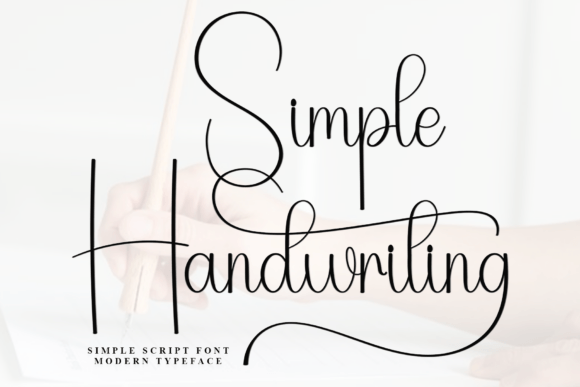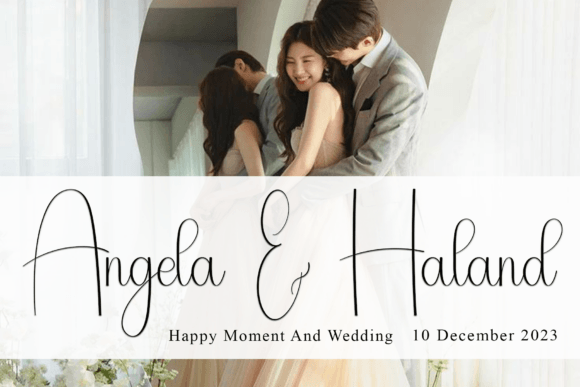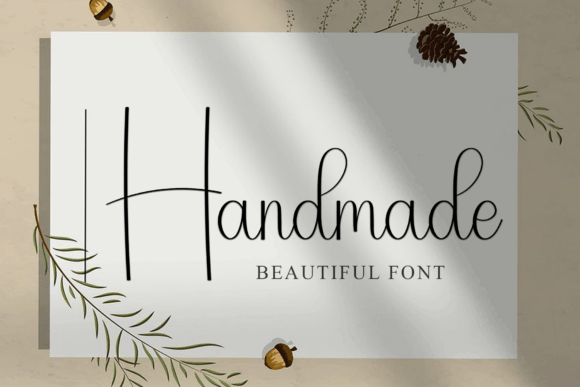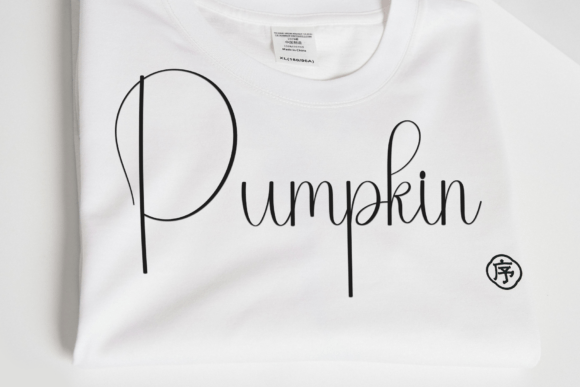
Simple Handwriting Font
About the Simple Handwriting Font
Make a bold statement with Simple Handwriting Font, a powerful and memorable font. Simple Handwriting is a stylish and incredibly elegant script font. It looks stunning on wedding invitations, thank you cards, quotes, greeting cards, logos, business cards and every other design which needs a handwritten touch.
Simple Handwriting Font Usage Examples
Simple Handwriting Font Example